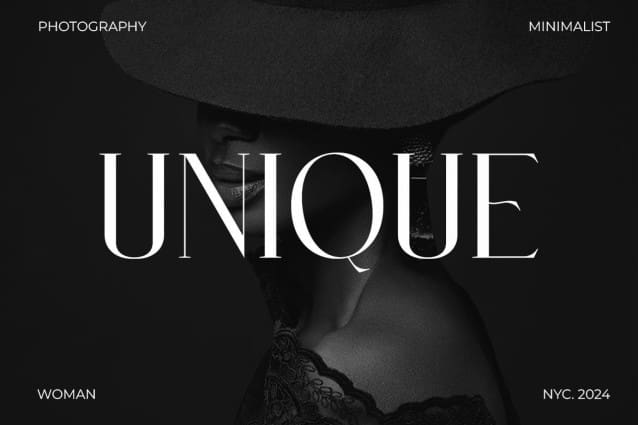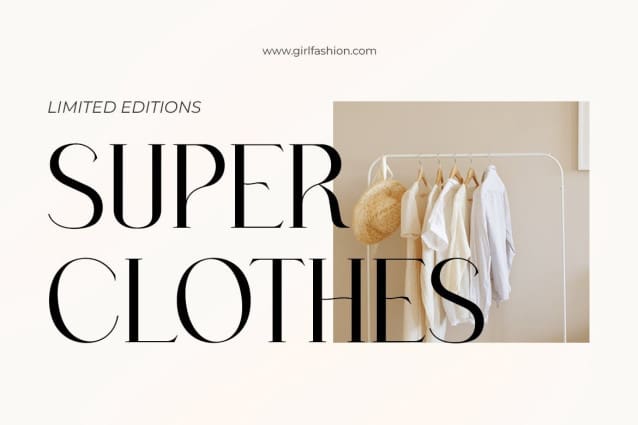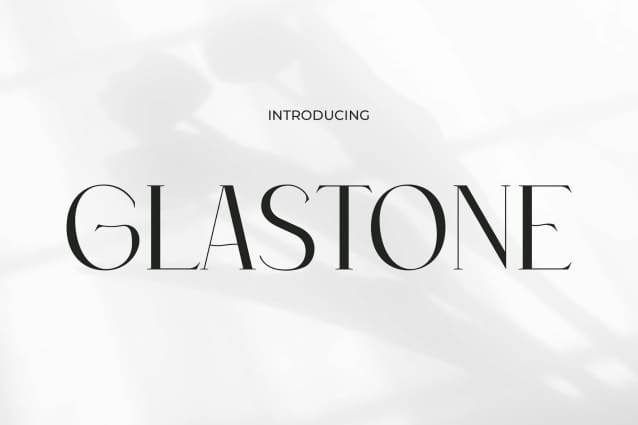
TP Glaston Font
TP Glaston Font is a modern font that exudes elegance and beauty and is designed to bring an elegant and sophisticated touch to any project. It sits at the intersection of contemporary design and artistic aesthetics, making it a perfect choice for various creative projects. Glaston offers a refined, premium look for its logos, setting brands apart with its elegant style. This font shines in handcrafted quotes, adding a touch of sophistication and grace, making each word resonate with beauty. Glaston gives a touch of modern elegance to its invitations, perfect for exclusive events and memorable gatherings. Its use in posters and greetings imparts an upscale charm, communicating messages with style and clarity.
TP Glaston offers a distinct and elegant identity in packaging and branding, ideal for products that aim to convey luxury and refinement. For book covers, event promotions, headlines and advertising, Glaston ensures your message captures attention and leaves a lasting impression of modern sophistication and artistic beauty